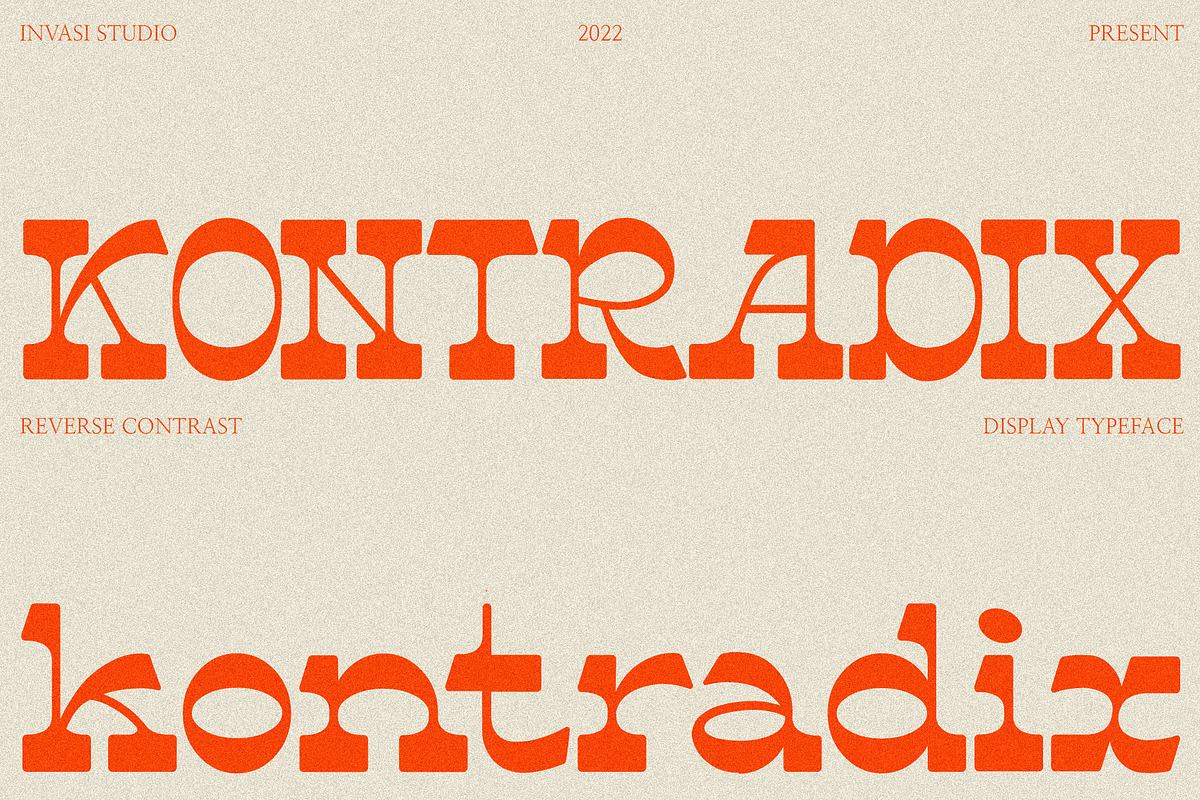
Kontradix – Reverse Contrast Font Free Download is a bold and unconventional typeface that flips the script on traditional letterform structure. With its eye-catching reverse contrast—thicker horizontal strokes and thinner verticals—Kontradix brings a fresh, artistic edge to posters, album covers, branding, editorial design, and experimental layouts.
Its unique style makes it perfect for designers who want to stand out and push creative boundaries. Kontradix includes uppercase and lowercase characters, punctuation, multilingual support, and works seamlessly on both Mac and Windows platforms.